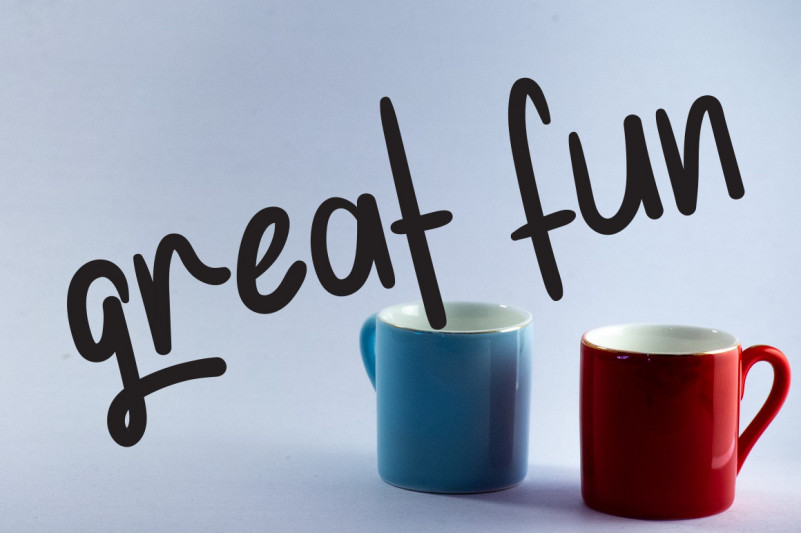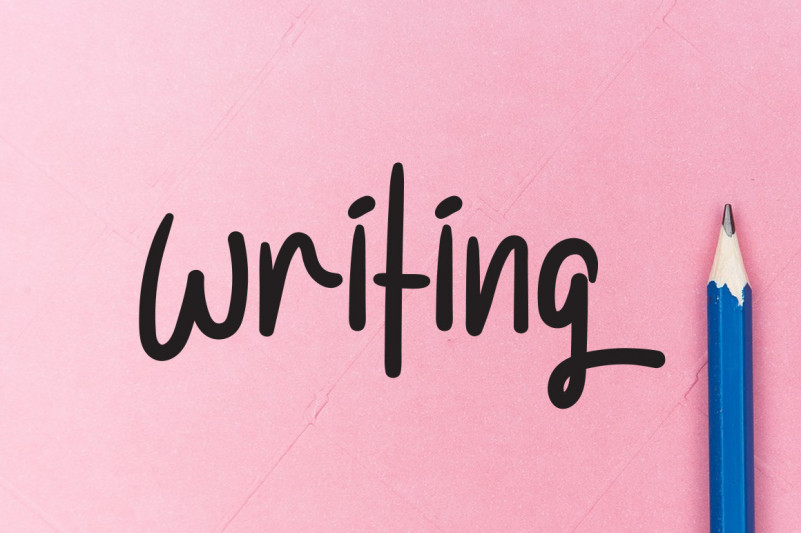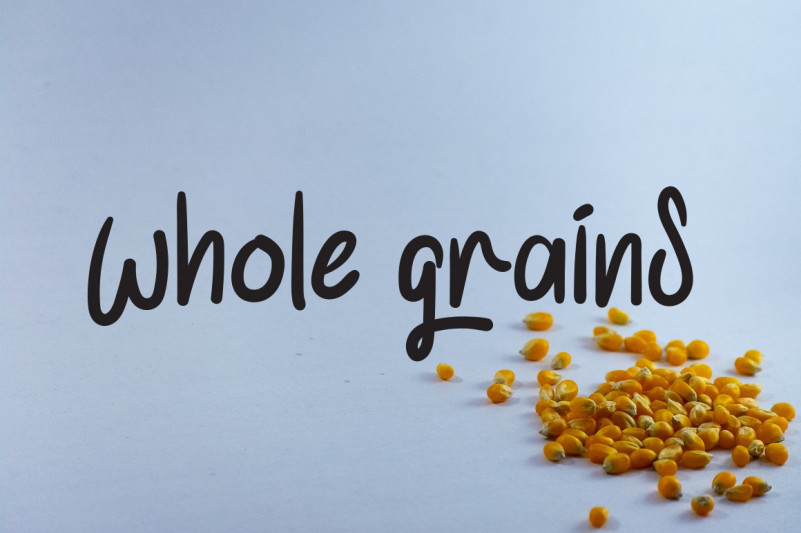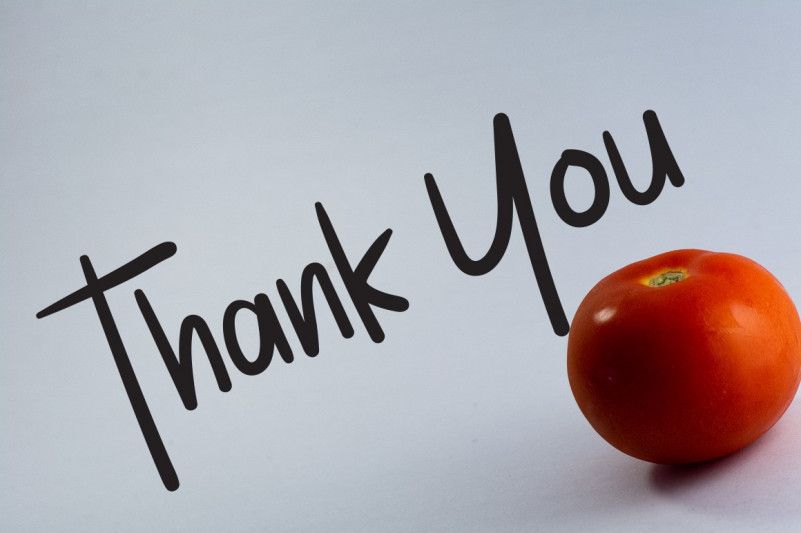
Happy Holiday Font
Happy Holiday Script Font
This is a unique and elegant handwritten font. It looks beautiful on a variety of designs requiring a personalized style, such as wedding invitations, thank you cards, weddings, greeting cards, logos and so on.
Happy Holiday Script Font is a very talented product for you to use,
Latest letters that can be used for various products, invitations, wall hangings, weddings, and more.